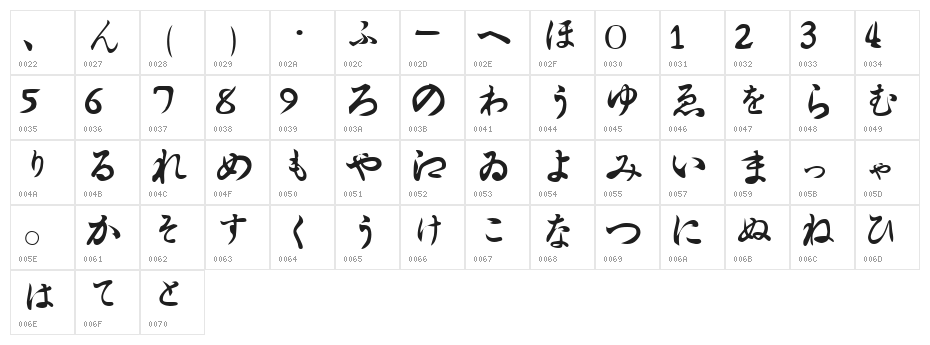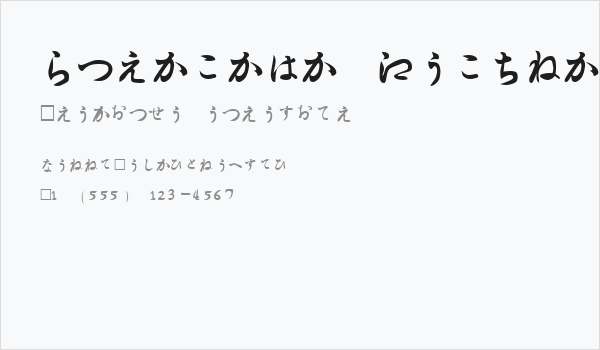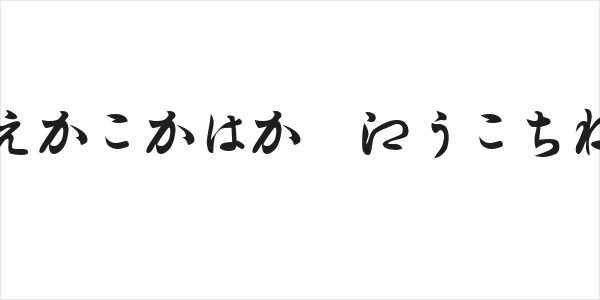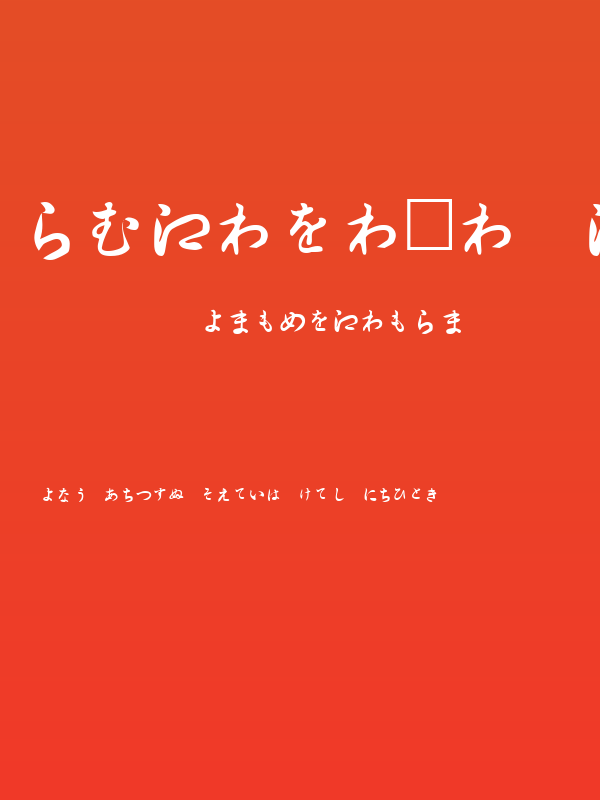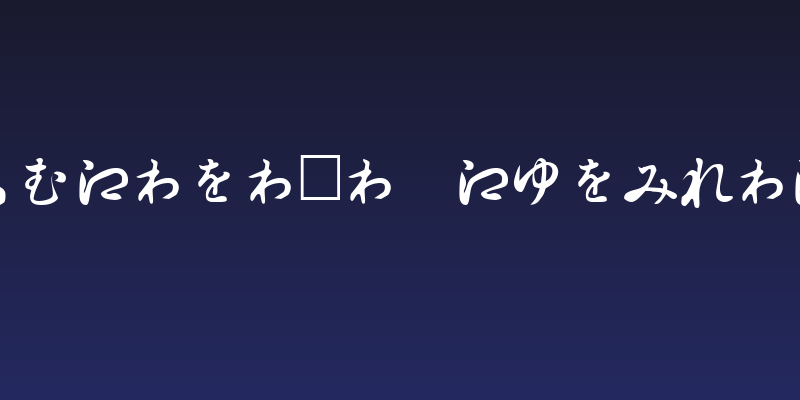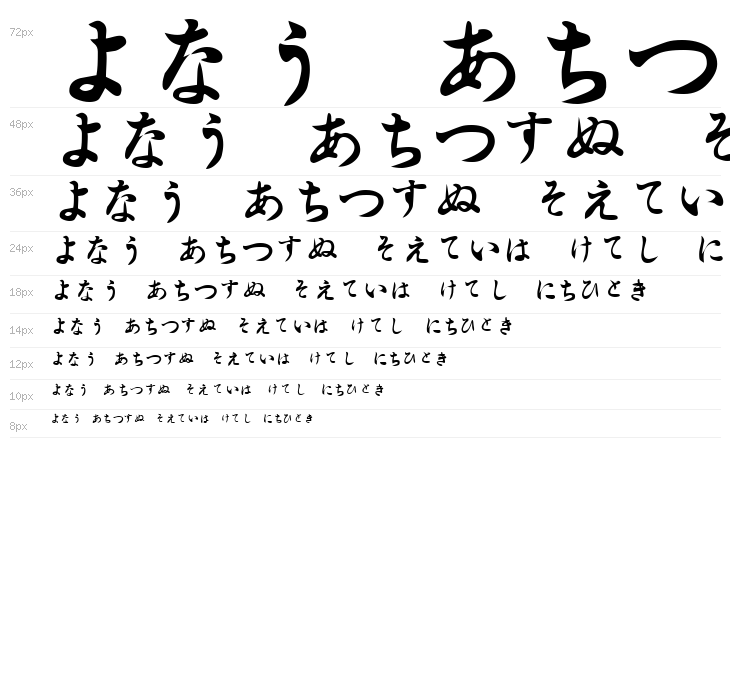
Hiragana Regular Font
| Caso d'uso | Headlines, Artistic designs, Educational materials |
| Progetti proposti | Ideal for cultural projects, educational materials, artistic designs, and any work requiring authentic Japanese script representation. |